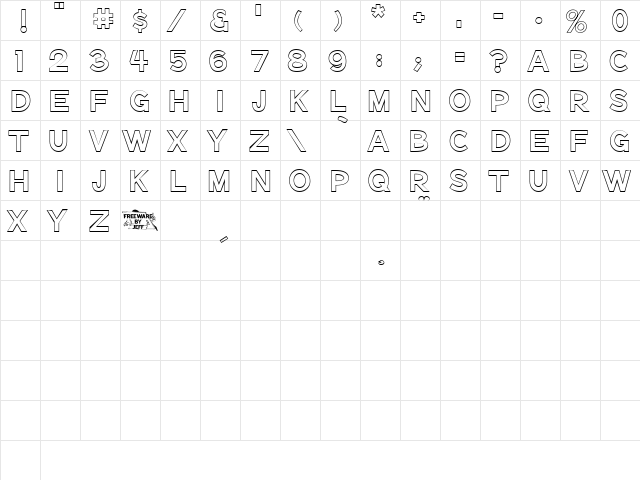
Notation Bold Open JL Regular
| Foundry | Jeff's Fonts & Dingbats |
| Designer | Jeffrey N. Levine |
Design Context for Notation Bold Open JL Typeface
Notation Bold Open JL takes a measured approach to typography — its balanced proportions and neutral character make it a reliable workhorse for both digital and print work. Its bold stroke weight gives it real presence on the page.